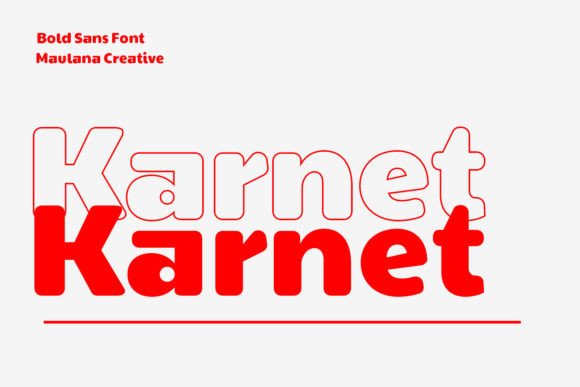
Enter the realm of digital artistry with Karnet Font, a sans serif masterpiece meticulously crafted by Maulana Creative. This font family unlocks a world of possibilities for web designers seeking to elevate their craft. Karnet's distinctive charm lies in its ability to transform ordinary text into captivating compositions, leaving a lasting impression on your audience.
With Karnet, your web pages will radiate elegance and sophistication. Its clean lines and sharp angles create a striking visual impact, guiding the reader's eye effortlessly through your content. Whether you're crafting blog posts, designing landing pages, or building online portfolios, Karnet empowers you to communicate your message with clarity and impact.
Unleash your creativity and explore the boundless applications of Karnet. Its versatility extends beyond web design, making it an ideal choice for logos, branding projects, social media graphics, and even print materials. Karnet's inherent adaptability allows it to seamlessly blend with diverse design aesthetics, ensuring that your projects exude a cohesive and professional look.
Karnet is more than just a font; it's an expression of your unique style and vision. Its timeless appeal ensures that your creations will stand the test of time, captivating audiences with their enduring beauty. Embrace Karnet and embark on a journey of digital artistry, leaving a trail of stunning visual experiences in your wake.